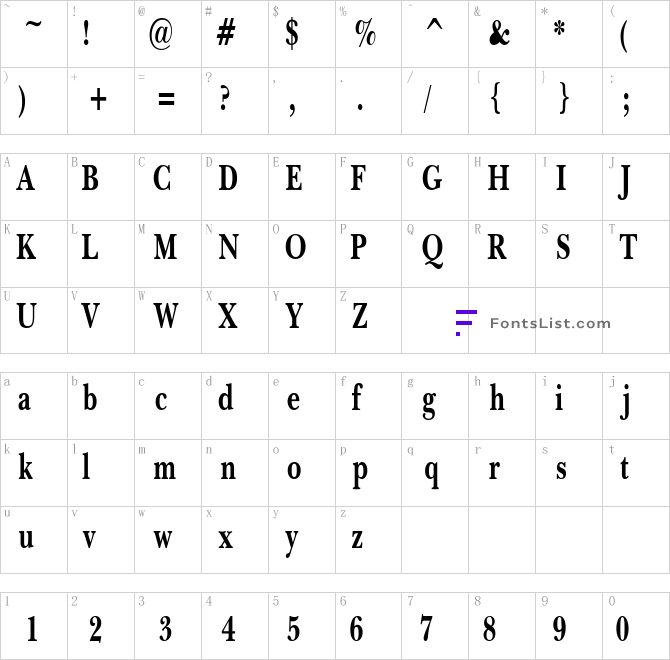
BaskertonCondSW-Bold.ttf is a very beautiful artistic font, BaskertonCondSW-Bold.ttf is widely used in the design and printing of various books and pictures,BaskertonCondSW-Bold.ttf has a strong visual impact,BaskertonCondSW-Bold.ttf is a commonly used font in newspapers, magazines and books, and is used in posters, e-commerce Poster design, store design, logo design, font design and other fields.BaskertonCondSW-Bold.